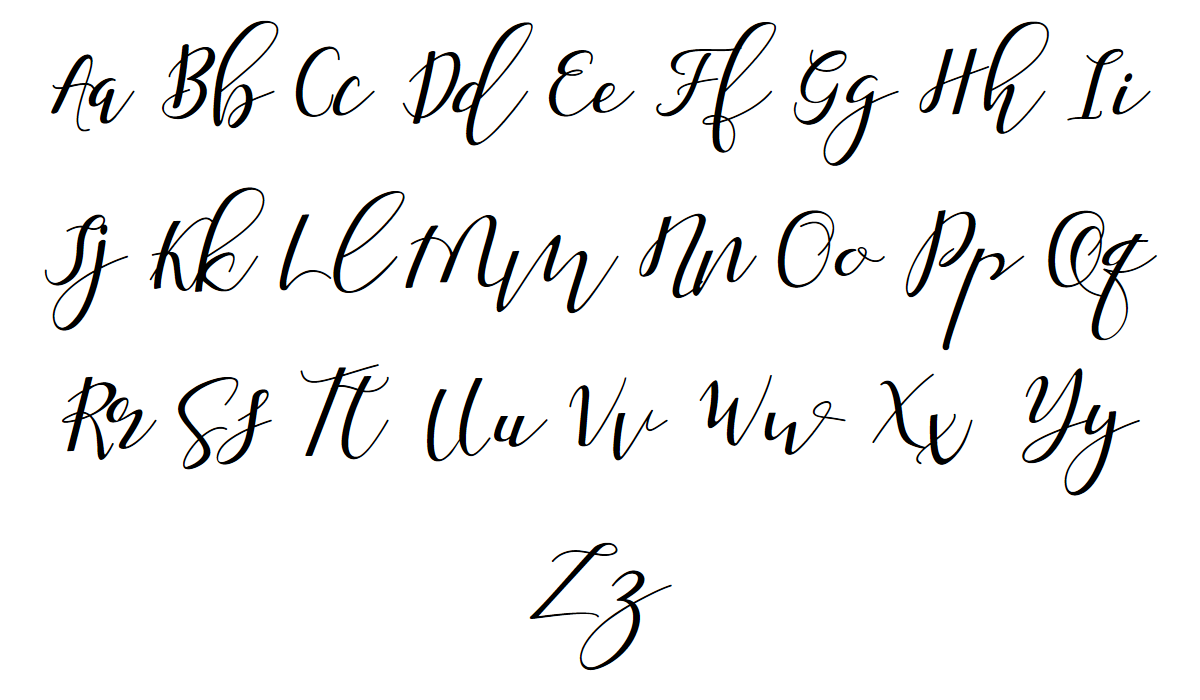
Shany Script Font
The fashion fat font may be very new and fashionable. The amazing’s fonts are finished, styles and designs of several works of paintings.
Style of Shany Script Font Free